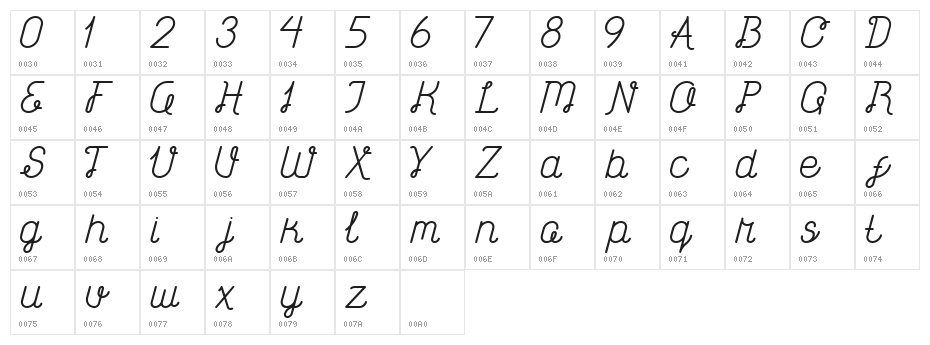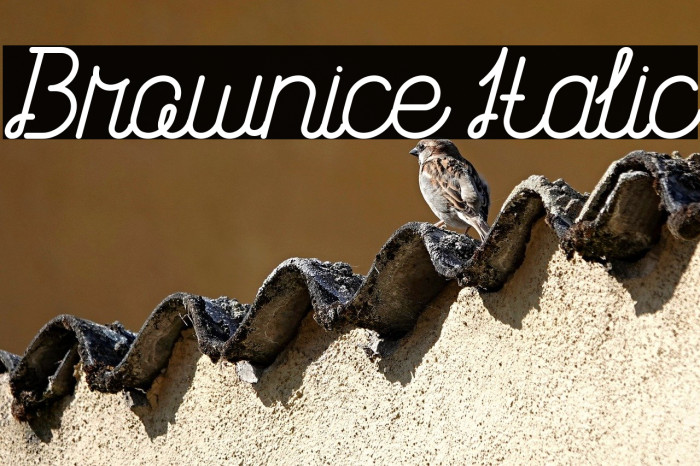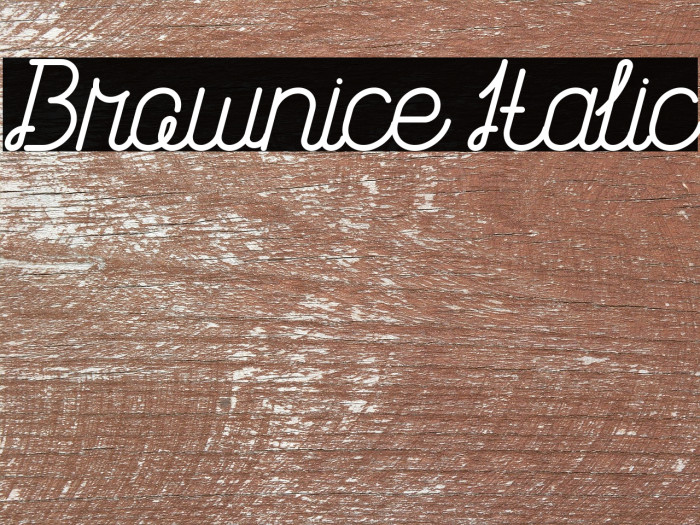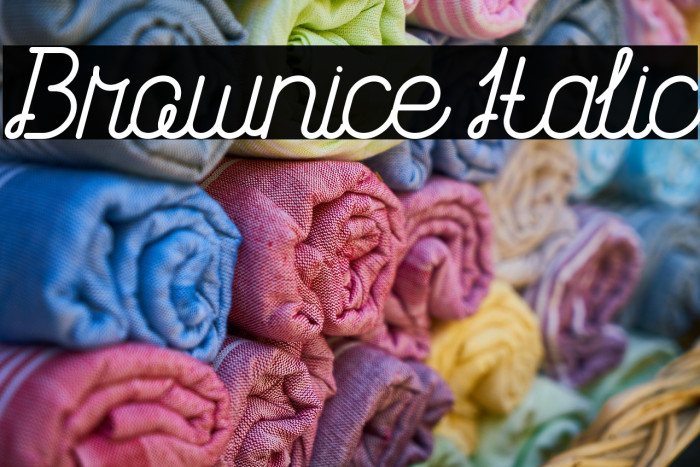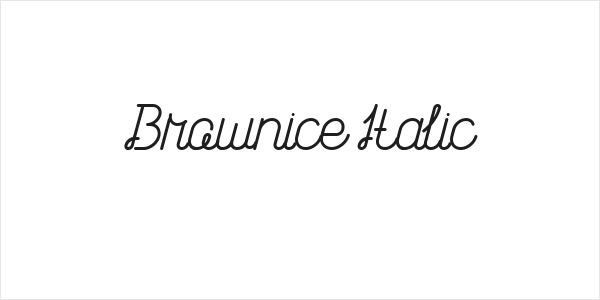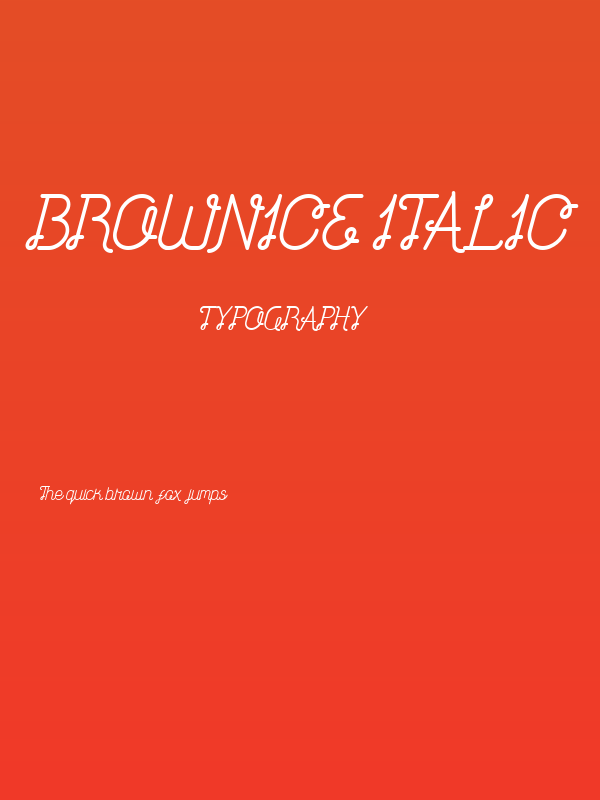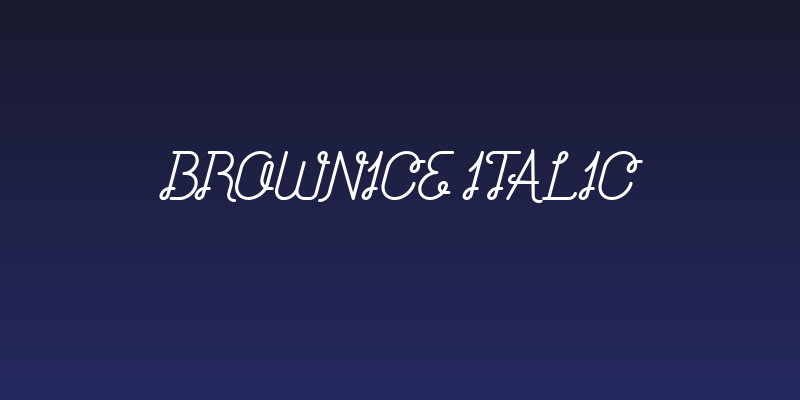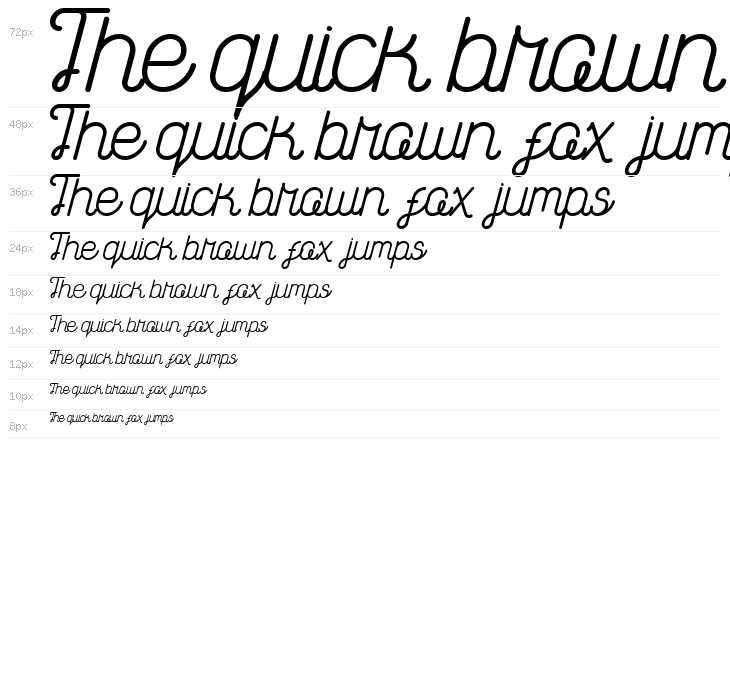
Brownice Italic Font
Brownice Italic Description
This font features a unique and playful script style with a modern twist. The characters are connected with a smooth, flowing line that gives it a handwritten appearance. Each letter has a distinctive loop or curl, adding to its decorative nature. The font maintains a consistent stroke width, providing a clean and polished look. It includes both uppercase and lowercase letters, numbers, and a selection of special characters. The overall design is elegant yet casual, making it versatile for various creative applications.
| Use Case | Logos, Invitations, Social Media Graphics |
| Proposed Projects | Ideal for greeting cards, invitations, branding, and social media graphics. |